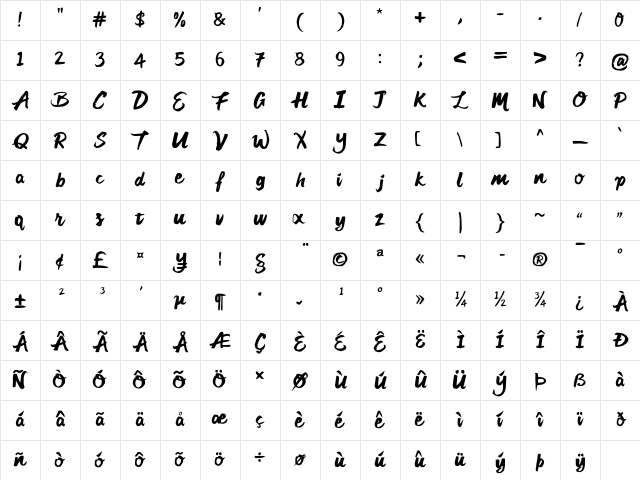
Complete Patricia Ferrer-Dalmau Dalmau (i) glyph index. Displaying only characters natively supported by Patricia Ferrer-Dalmau Dalmau (i) font.
Patricia Ferrer-Dalmau is a composed and adaptable typeface that performs quietly and consistently across a wide range of design contexts.